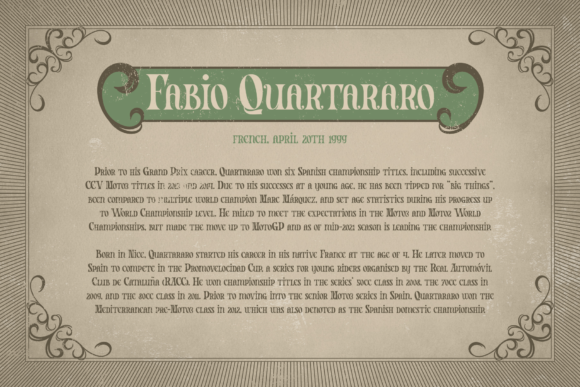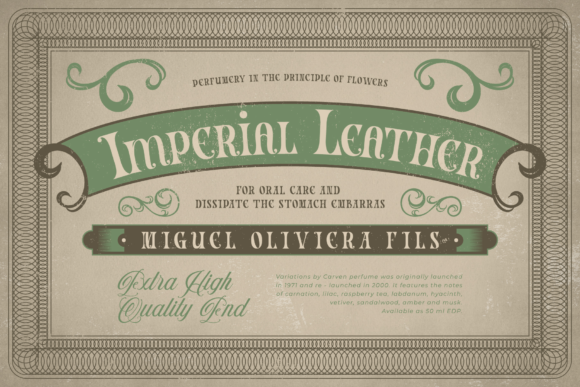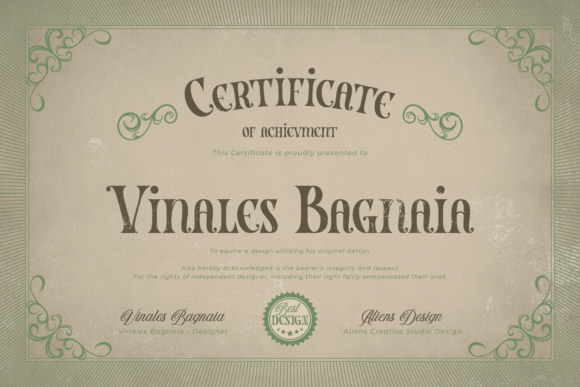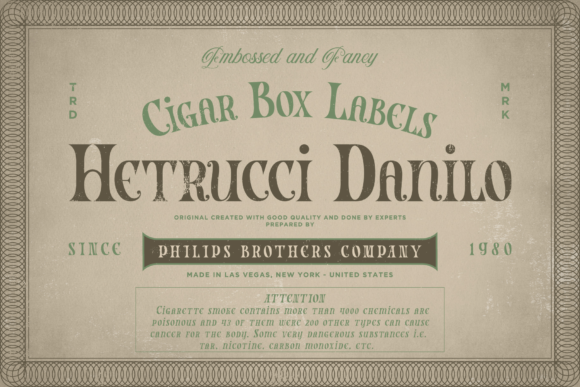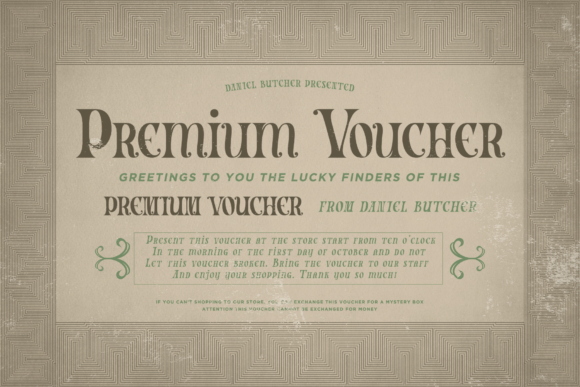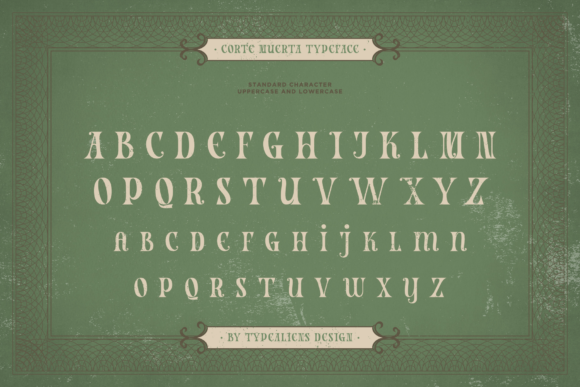
Introduction to Corte Muerta Font Font
Fonts play a crucial role in design, and the Corte Muerta Font font is a typeface that brings both character and versatility to any project. Whether you’re working on a branding project, a website, or a print design, the Corte Muerta Font font offers a unique style that can elevate your work.
Corte Muerta is a unique and somewhat spooky serif font, featuring little ornaments and different characters for a unique result.
It works great for both modern and retro creative projects .
The Corte Muerta Font font is more than just a typeface – it’s a design tool that helps you communicate your message with style and clarity. Its unique character set and versatile design make it suitable for a wide range of applications, from elegant invitations to bold headlines.
With its carefully crafted letterforms and balanced proportions, the Corte Muerta Font font ensures readability and visual appeal across all mediums.
The Corte Muerta Font font stands out with its unique design, exceptional readability, and versatility across various design applications.